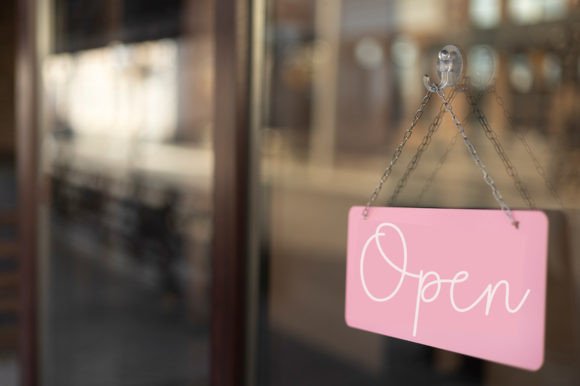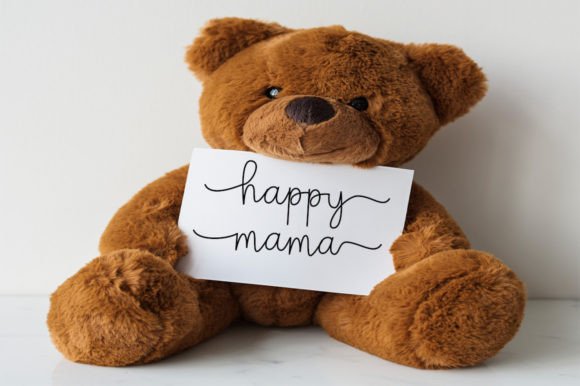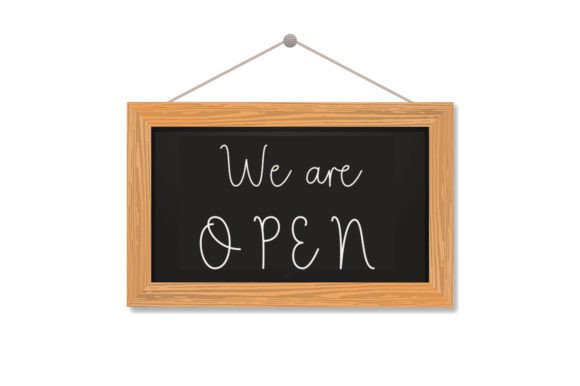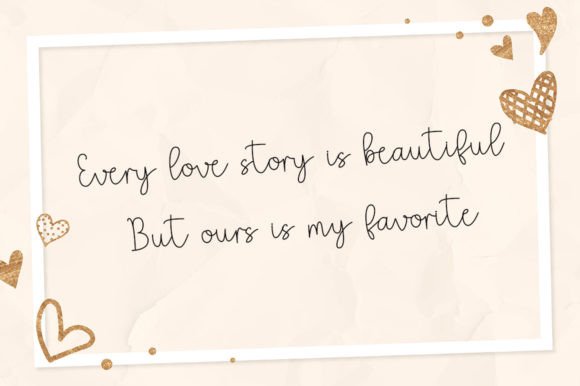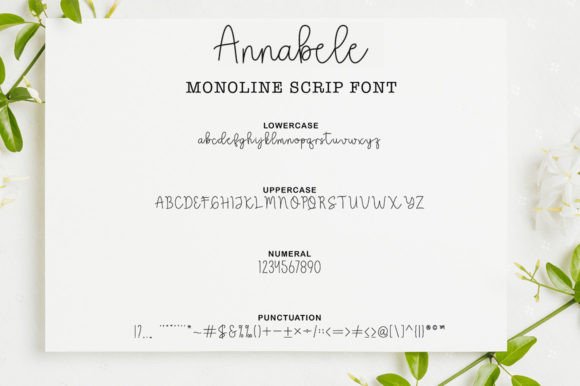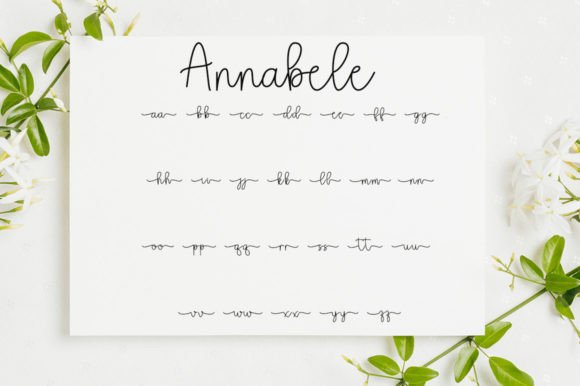
Unveiling the Perfect Script: Annabele Font
There’s something magical about the moment when a design comes together – a harmonious balance of colors, shapes, and typography that elevates the entire piece. For many designers, this moment is often sparked by the perfect font, and for those seeking a touch of elegance, the Annabele Font is sure to be a game-changer.
This beautiful handwritten font is designed to add a customized touch to any design project, from wedding invitations to business cards. Its gorgeous script style and PUA encoding make it easy to access all the glyphs and swashes, giving designers the freedom to create unique and eye-catching designs. Whether you’re a seasoned pro or a beginner, the Annabele Font is an invaluable addition to any design toolkit.
- Unique Characteristics: Elegant script, beautiful handwritten style, suitable for invitations, wedding stationery, and formal events
Annabele Font Review
As a designer, I was excited to try out the Annabele font. Here’s my honest review.
- Unique Character: Annabele has a distinctive character that sets it apart from other fonts. Its quirky, hand-drawn feel makes it perfect for projects that need a touch of personality.
- Legibility: Despite its unusual design, Annabele is surprisingly legible, making it a great choice for body text and headlines.
- Customization: Annabele comes with a range of styles and weights, giving designers the flexibility to customize their projects to suit their needs.
- Compatibility: Annabele may not be compatible with all font rendering engines, which could lead to issues with text rendering on certain devices.
- Readability at Small Sizes: While Annabele is legible, its readability suffers at small font sizes, making it less suitable for projects that require text to be displayed at very small sizes.
Overall, Annabele is a unique and versatile font that’s perfect for designers who want to add some personality to their projects. While it has its limitations, its quirky charm and customization options make it a great choice for the right projects.
Tip: Use Annabele Font for titles and headings to add a touch of elegance to your designs.
Tip: Use Annabele Font for logos, titles, and headings to add a touch of sophistication to your designs.
Tip: Use Annabele Font for titles, headings, and body text to add a touch of elegance to your presentations and documents.